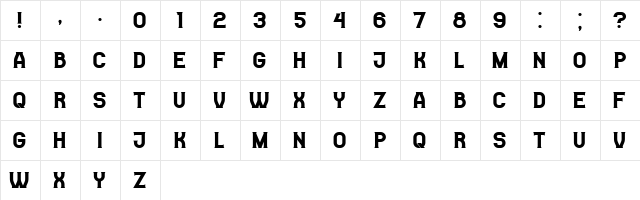
Casino Flat Regular
Design Context for Casino Flat Typeface
Casino Flat offers clean, dependable letterforms without strong stylistic allegiance, making it a practical choice for designers who need flexibility.